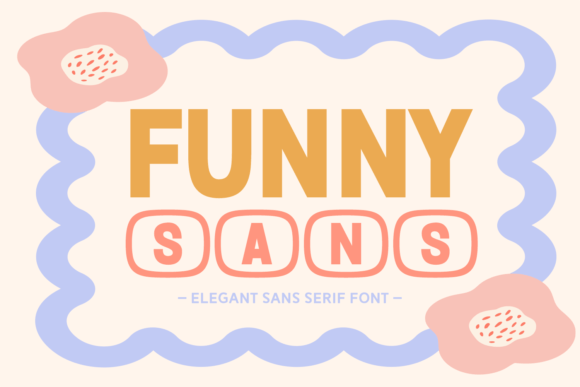
Adding a Dash of Whimsy to Your Designs
Have you ever been stuck on a design project, struggling to bring that extra spark to your work? We’ve all been there – staring at a blank page, trying to conjure up the perfect combination of colors, shapes, and typography to grab our audience’s attention. That’s where the Funny Sans Font comes in – a playful, eye-catching typeface that’s guaranteed to put a smile on your face and a spring in your design step.
This charming font is perfectly suited for display projects, from branding and logos to packaging and advertising. Its bright, fun personality makes it a valuable asset for designers looking to add a little humor and personality to their work. And with its PUA encoding, accessing all the amazing glyphs and ligatures is a breeze – giving you even more creative possibilities to explore.
Funny Sans Font Key Features
- Unique Characteristics: The font features a humorous, playful design with exaggerated letterforms, making it perfect for creating lighthearted and entertaining content.
Designer Review: Funny Sans Font
I recently had the chance to work with the Funny Sans font, and I must say, it’s a unique and quirky addition to any design project. Here are some of my thoughts:
- Playful vibe**: The Funny Sans font has a clear intention to make you smile, and it succeeds in that regard.
- Expressive characters**: The font’s characters are full of character, with plenty of creative flourishes that add to its charm.
- Good legibility**: Despite its playful nature, the font remains easy to read, making it suitable for a wide range of applications.
- Limited style options**: While the font has a unique personality, it’s not particularly versatile, which may limit its use in certain contexts.
- Not ideal for serious content**: The font’s playful nature may not be suitable for serious or formal content, where a more subdued tone is preferred.
- May require adjustments**: Depending on the project, you may need to adjust the font size or line height to get the best results.
Overall, I think the Funny Sans font is a fun and creative addition to any design project. While it may not be the best choice for every situation, it’s definitely worth considering when you need to add some personality to your design.
Funny Sans Font is a playful and whimsical font that is perfect for creating eye-catching titles, headings, and quotes. It’s also great for use in social media graphics, memes, and other digital content. Some common use cases include:
- Creating humorous and lighthearted content
- Adding a touch of personality to your brand
- Creating engaging and shareable social media posts